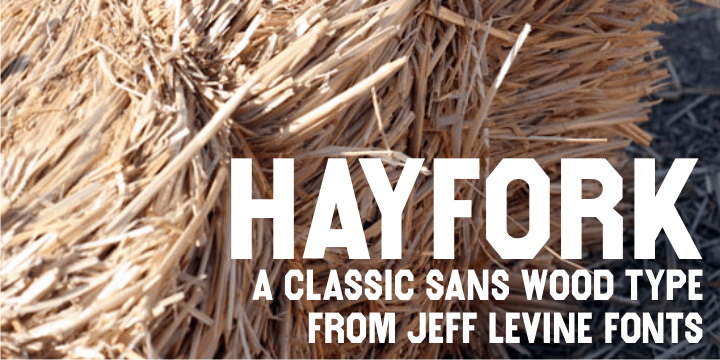
Hayfork
Hayfork JNL is based on a vintage wood type sanserif typeface from the 1880s. A font of similar design is Eckhardt Poster Block JNL, which was modeled from a 1920s sign painter's handbook; no doubt getting its inspiration from this wood type's design.
Hayfork JNL Regular by Jeff Levine Fonts